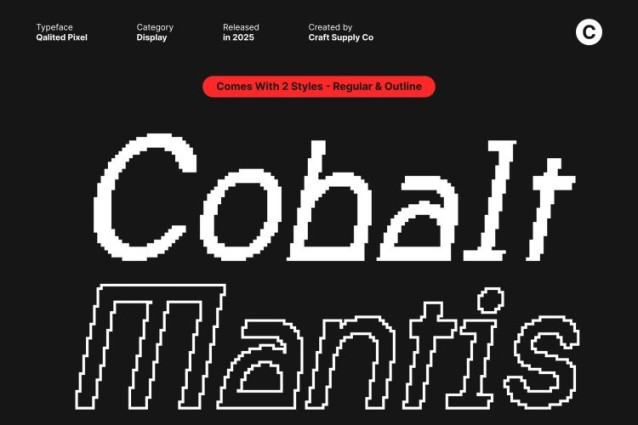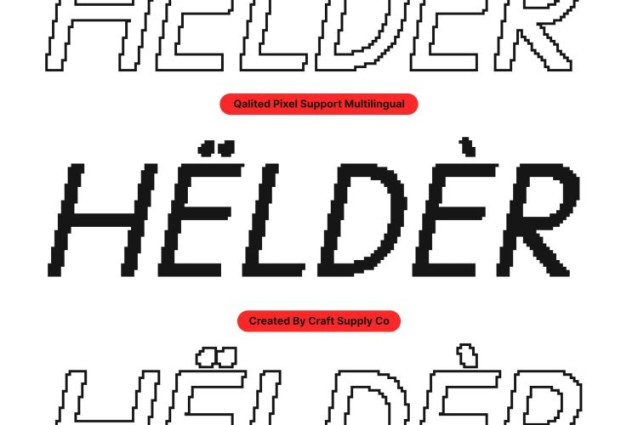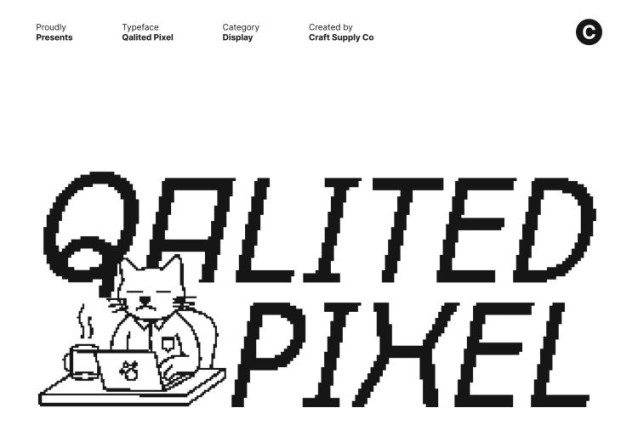
Qalited Pixel Font
Qalited Pixel Font This is a quirky and experimental brutalist sans serif font designed for creators who love pushing visual boundaries. Built with sharp edges, rigid angles, and unconventional geometry, this typeface captures the raw energy and structural boldness of brutalist design.
Unconventional Geometry for a Strong Visual Presence
Every letter in this font is shaped with an unapologetic and angular construction. The exaggerated geometry emphasizes strength, edginess, and contemporary aesthetics. This unconventional style gives the font a sculptural quality, making it ideal for editorial layouts, conceptual posters, or bold graphic compositions.
Pixelated Texture for a Distinctly Digital Style
Enhancing its brutalist structure is a pixelated effect that introduces a modern digital twist. The pixel texture adds depth, personality, and a touch of retro-tech charm, transforming each character into a blocky yet stylish visual form. This combination of brutalism and pixel art creates a fresh, experimental look perfect for digital branding, tech-forward designs, or creative display pieces that embrace the aesthetics of the digital era.
Perfect for Editorial, Posters, Branding, and Creative Experiments
This font is crafted for projects that thrive on creativity, boldness, and experimentation. Its unique geometry and pixel styling make it ideal for editorial design, expressive posters, graphic design concepts, branding with attitude, or any project that demands strong visual impact.